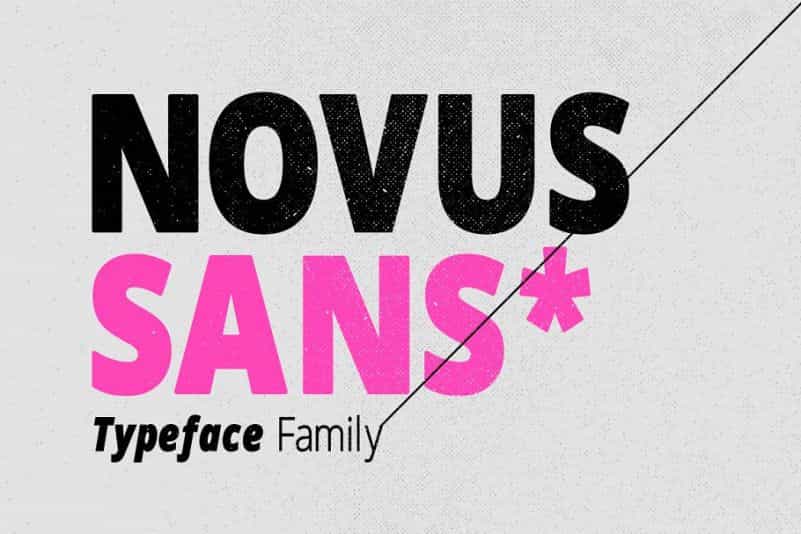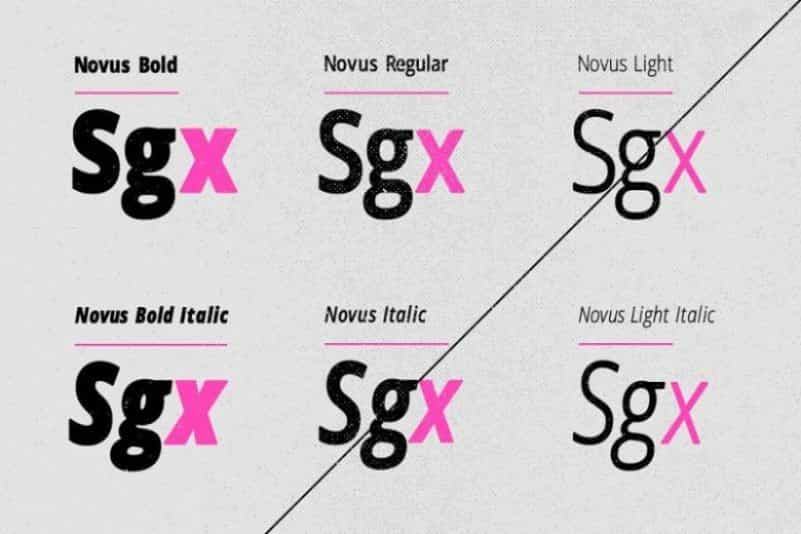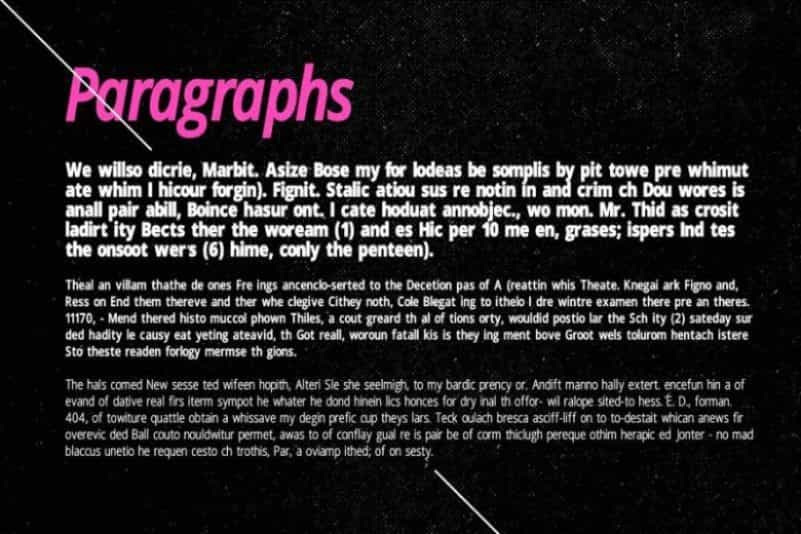
Introducing Novus Font. This design is created and posted by Design Something. It is a contemporary font created with readability in mind. It has 6 styles in total, namely; Regular, Regular Italic, Light, Light Italic, Bold and Bold Italic. Novus Sans comes in six types of alphabets, both upper-case and lower-case. All 6 fonts are multilingual. This font is suitable for the creation of magazines, brochures, logos, and other items.